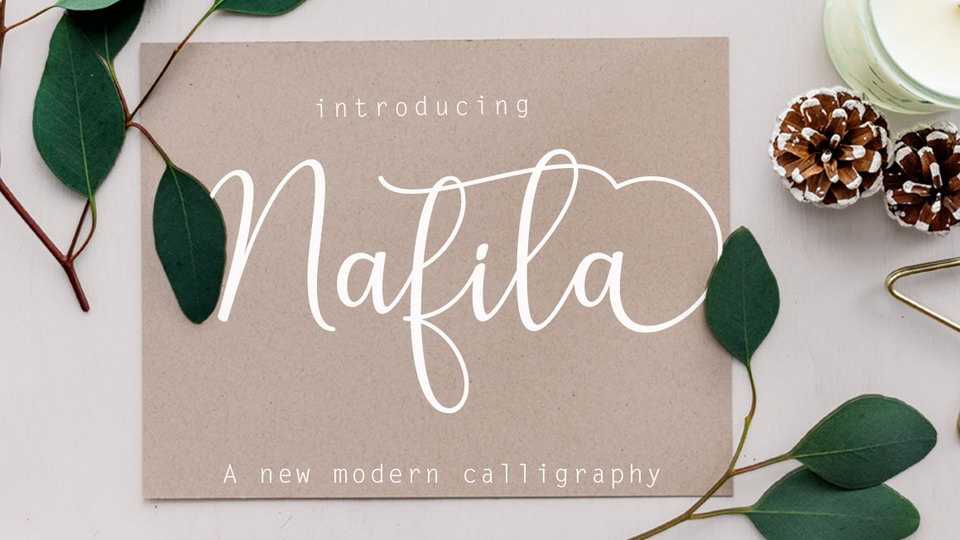
Download Nafila, a lovely handmade font with dancing style and then live trace to have unique forms of calligraphy, the writing style is very natural, suitable for wedding decoration, letters, cards, social media, craft design and much more.